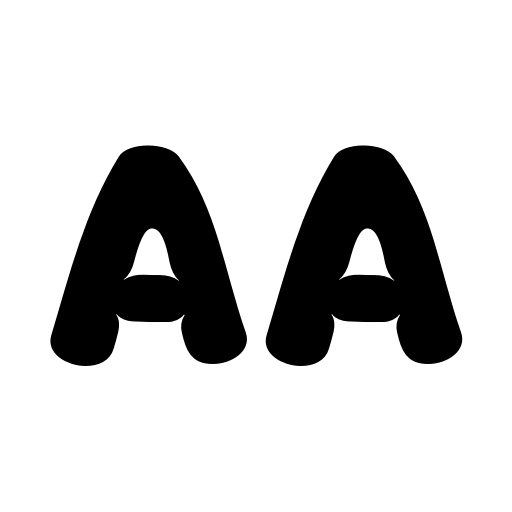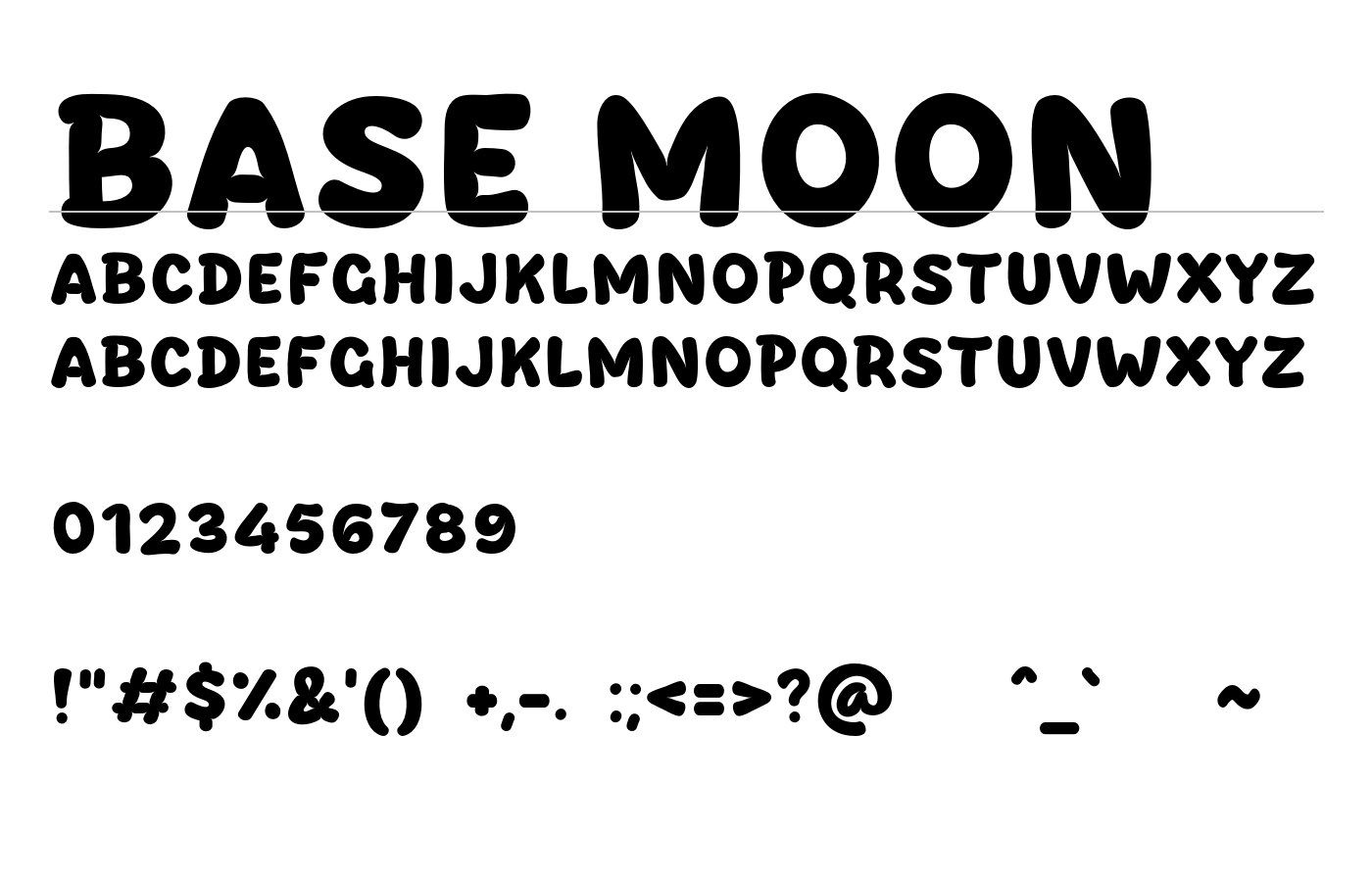
Base Moon Font is a bold, playful sans serif typeface with rounded, irregular shapes that give it a friendly and approachable feel. Its thick strokes and bubbly letterforms make it ideal for fun and casual designs, perfect for children's books, posters, and branding that aims to convey warmth and creativity. This font works well in headlines and display uses where a cheerful and informal tone is desired.
Base Moon Font
About Base Moon Font
| Font family | Base Moon Font |